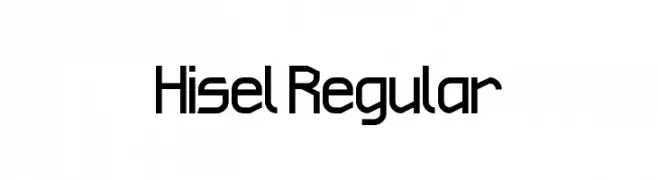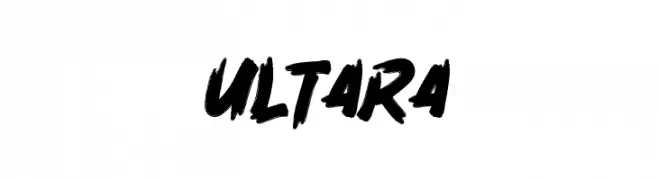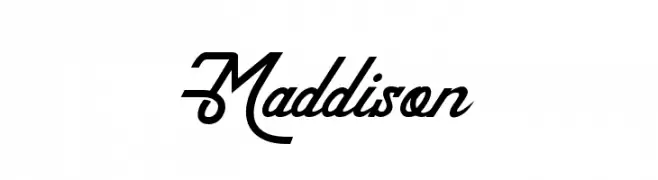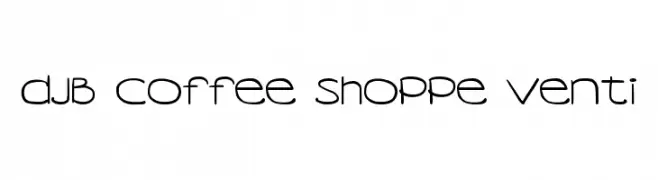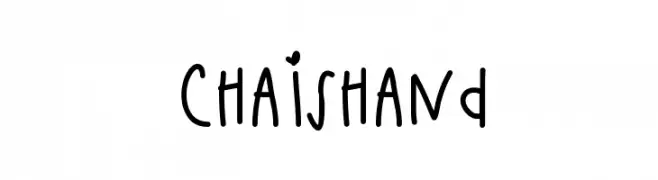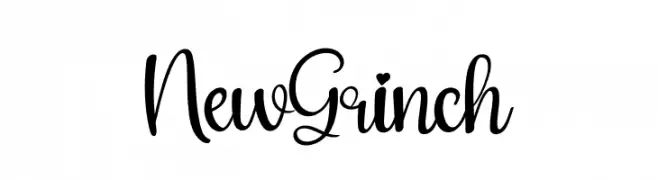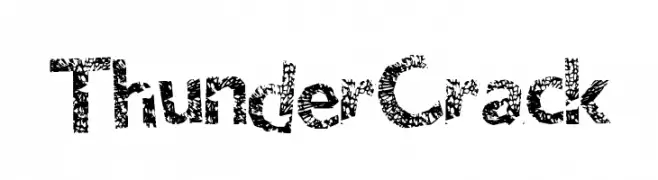
Bold brush-style font with a dynamic appearance.
A dynamic and elegant script font with flowing, cursive design and intricate swashes.
A sleek, futuristic font with thin, continuous lines and a minimalist aesthetic.
A playful, handwritten-style font with rounded edges and consistent stroke width.
A playful, handwritten font with whimsical embellishments and a casual style.
A playful, handwritten font with dynamic flourishes and a whimsical style.
A bold, cracked, and textured font with an edgy and dynamic style.